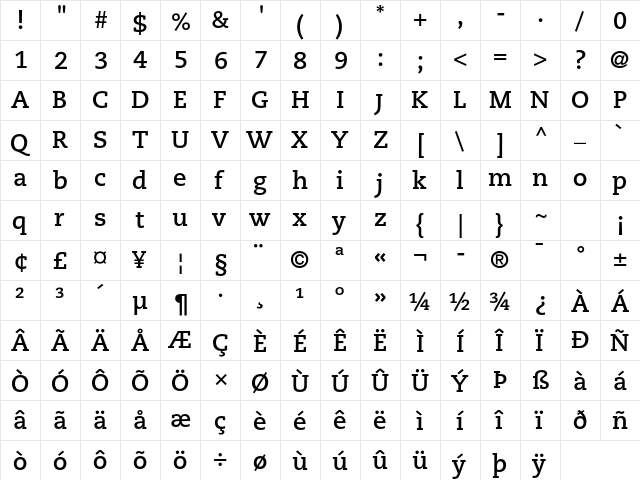
Caecilia LT Std 75 Bold
| Designer | Peter Matthias Noordzij |
Design Context for Caecilia LT Std Typeface
Caecilia LT Std offers clean, dependable letterforms without strong stylistic allegiance, making it a practical choice for designers who need flexibility. The heavy weight commands attention and anchors typographic hierarchies.